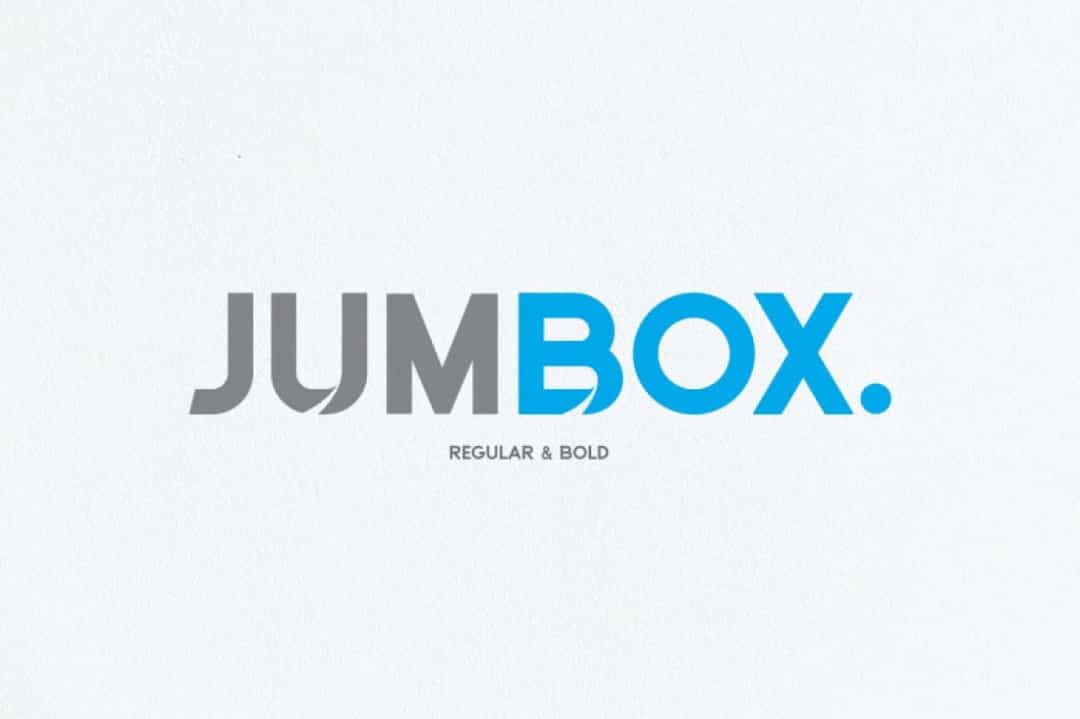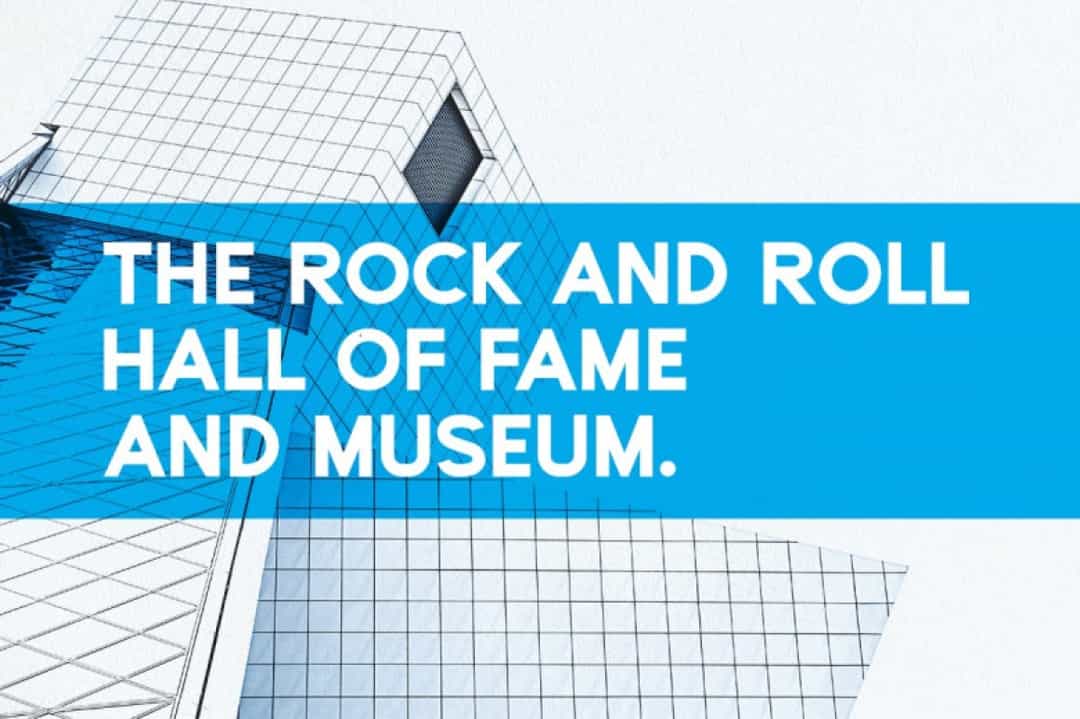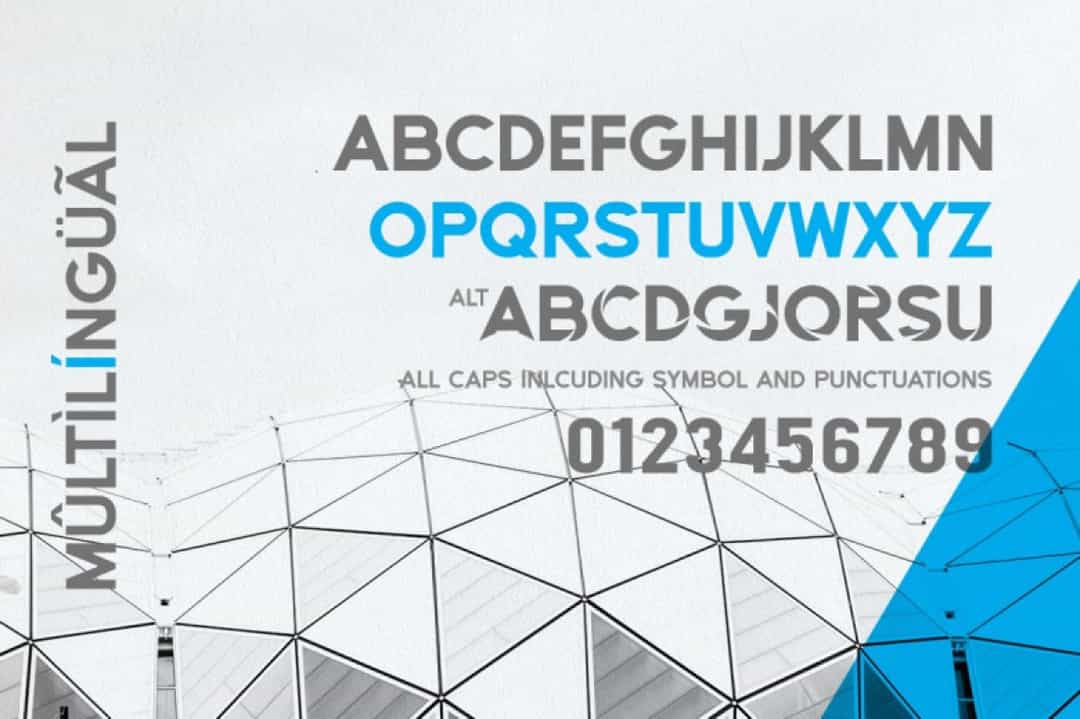
Jumbox is an eye-catching strong and thick display font without any typeface, perfect for posters, flyers or other printed materials. Make use of its endless possibilities in designing projects of all kinds!